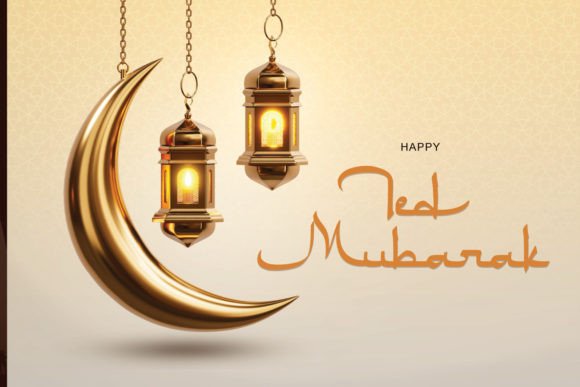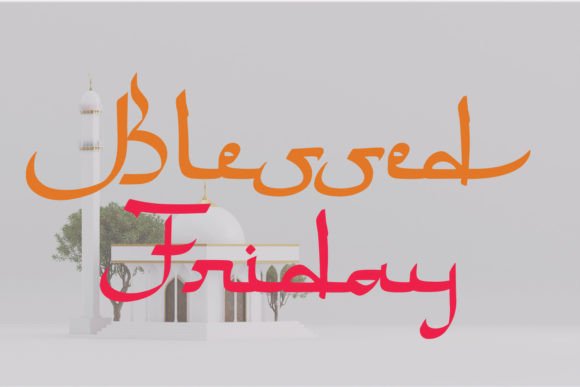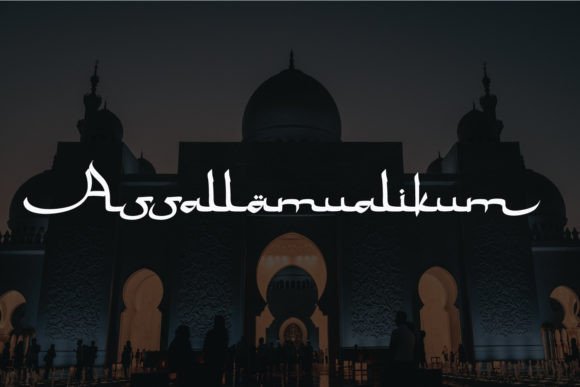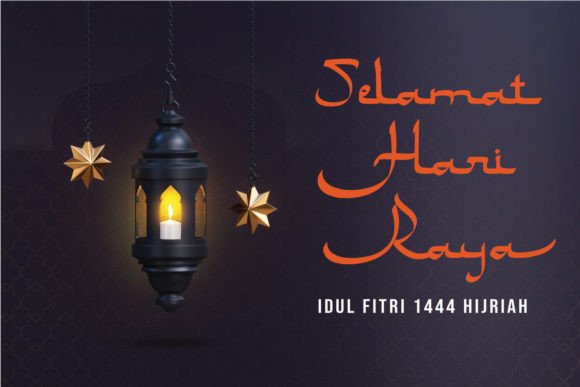
Unleashing the Spirit of Ramadan with a Unique Twist
Imagine you’re strolling through a bustling souk, surrounded by vibrant colors and the sweet scent of traditional Middle Eastern sweets. The atmosphere is electric, and you can’t help but feel a sense of excitement and wonder. It’s moments like these that inspire creativity, and for designers, the chance to capture the essence of Ramadan in their work is a dream come true.
Enter the Bulan Ramadhan Font, a stunning display font that perfectly captures the beauty of Arabic letters. Designed to evoke the spirit of Ramadan, this font is a game-changer for designers looking to add an authentic touch to their projects. Whether you’re working on a branding project, a poster, or a digital design, the Bulan Ramadhan Font is the perfect choice.
Bulan Ramadhan Font Key Features
- Font Style: A unique, modern, and elegant font designed specifically for the holy month of Ramadan.
Bulan Ramadhan Font Review
Overall, I think the Bulan Ramadhan font is a great effort, especially for those who celebrate Ramadan. As a designer, I appreciate the unique approach to creating a font that combines traditional and modern elements. Here’s my honest review:
- The font’s calligraphy style is well-executed, giving it a beautiful and elegant feel.
- The inclusion of intricate details and ornaments adds a nice touch of traditional craftsmanship.
- The font’s versatility allows it to be used in various contexts, from digital media to print materials.
- The font may be challenging to read for those who are not familiar with calligraphy or Islamic scripts.
- The font’s complexity may lead to compatibility issues with certain software or platforms.
- The font could benefit from additional language support, making it more accessible to a broader audience.
While the Bulan Ramadhan font has its limitations, I believe it’s a valuable resource for designers and creators who want to celebrate Ramadan in a unique and meaningful way. With a little tweaking and refinement, this font has the potential to become a beloved classic.
The Bulan Ramadhan Font is perfect for creating Islamic-themed designs, such as Ramadan posters, Eid cards, and Islamic art. To get the most out of this font, use it in combination with other Islamic-themed elements, such as Arabic calligraphy and Islamic patterns.
Some common use cases for the Bulan Ramadhan Font include:
- Creating Ramadan-themed designs for social media and websites.
- Designing Eid cards and gift tags.
- Creating Islamic art and calligraphy pieces.